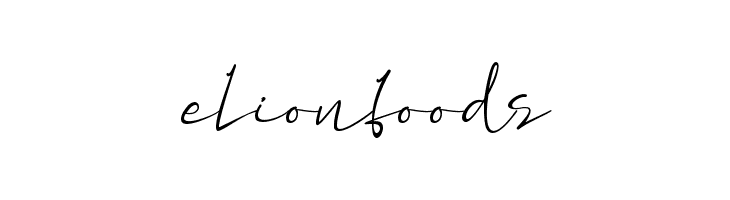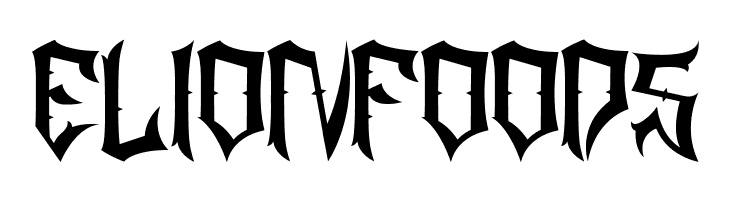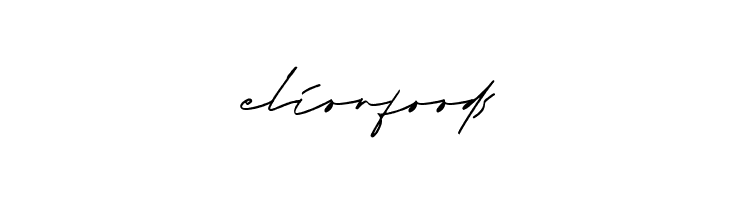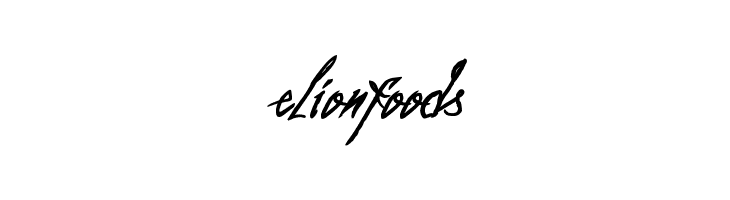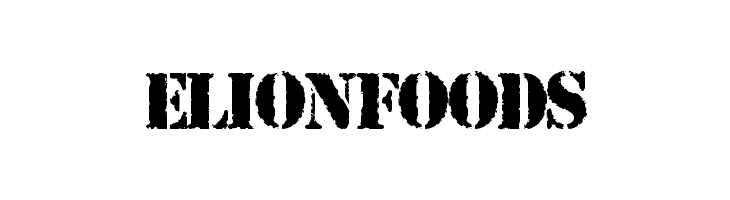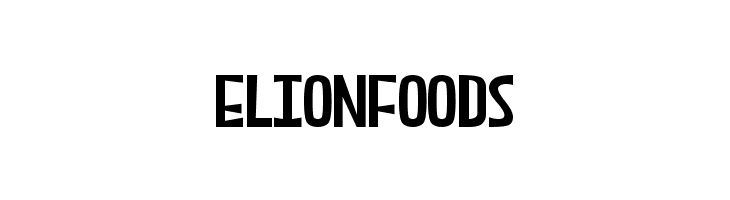
A dynamic, expressive handwritten font with rough, textured strokes.
A bold, distressed font with a rugged, industrial look.
A dynamic script font with elegant calligraphic strokes and modern flair.
A bold, hand-crafted font with a playful and artistic style.
A bold, gothic font with sharp, angular lines and dramatic serifs.
A modern, geometric font with a clean and professional design.
A bold, geometric font with angular characters and strong lines.
A cursive, handwritten-style font with elegant, flowing strokes.